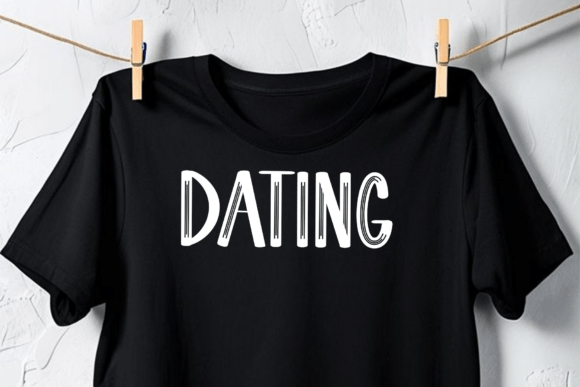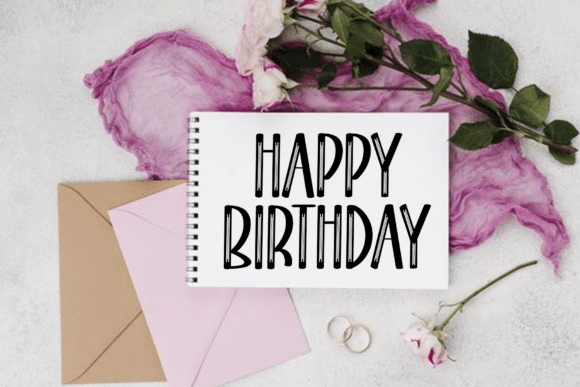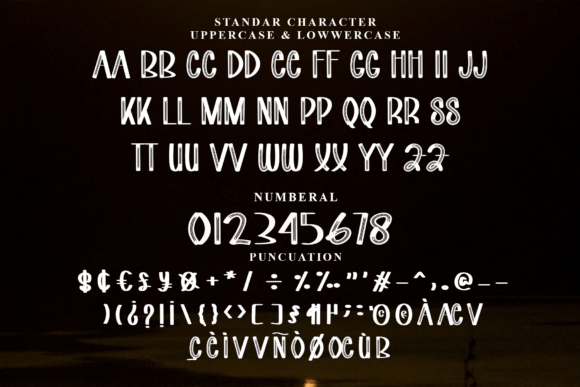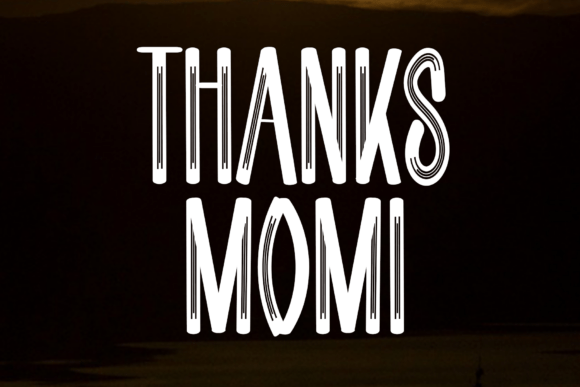
Embracing the Clarity of Handwritten Perfection
There’s a moment when you stumble upon a font that feels like a breath of fresh air. It’s the moment when your design takes a leap forward, and you know you’ve found something special. For me, that moment came when I discovered the Bright Digital Font – a modern handwritten masterpiece that exudes clarity and crisp elegance.
Bright Digital Font is a carefully crafted entry into the world of handwritten fonts, designed to evoke a sense of sophistication and refinement. Its tall, thin strokes and subtle, airy slant make it the perfect choice for designers looking to add a touch of elegance to their projects. Whether you’re working on a travel photography website or branding a new outdoor gear company, Bright Digital Font is sure to impress.
As a designer, you’re always on the lookout for fonts that can elevate your work and make it stand out. Bright Digital Font is a valuable addition to any design arsenal, offering a clean and approachable style that’s perfect for a wide range of projects.
Bright Digital Font Key Features
- Unique Character Set: Bright Digital Font includes a comprehensive set of characters, including Latin, Cyrillic, and Greek alphabets, as well as a range of punctuation marks and symbols.
- Highly Legible: The font’s carefully crafted design ensures high legibility, making it perfect for use in digital displays, such as websites, mobile apps, and e-readers.
- Professional and Modern Look: Bright Digital Font features a clean, modern aesthetic that is ideal for use in corporate, editorial, and creative applications.
Bright Digital Font Review
Overall, I’m impressed with the Bright Digital Font. ✨ It has a unique and modern aesthetic that’s perfect for digital projects. The font’s clean lines and minimalistic design make it easy to read, even on smaller screens. ✨
- The font’s versatility is one of its strongest features. It’s suitable for a wide range of applications, from logos and branding to web and mobile interfaces.
- The font’s OpenType features, such as ligatures and swashes, add an extra layer of sophistication and elegance.
- The font’s extensive language support makes it a great choice for global projects.
However, there are a few limitations to consider: ⚠️ The font’s sans-serif design may not be suitable for all projects, particularly those that require a more traditional or serif look.
- The font’s weight range is somewhat limited, with only four weights available (light, regular, medium, and bold).
- The font’s italics may not be as refined as some users would like.
Overall, I think the Bright Digital Font is a solid choice for digital designers. While it may not be perfect, its unique design and versatility make it a great addition to any font collection.
Getting the Most Out of Bright Digital Font
Here are some tips to help you get the most out of Bright Digital Font:
- Use it for titles and headings to add a touch of modernity to your design.
- Pair Bright Digital Font with other modern fonts to create a cohesive look.
Bright Digital Font is perfect for:
- Modern website designs
- Digital marketing materials
- Presentations and pitches
Alternatives to Bright Digital Font
Montserrat is a clean, sans-serif font ideal for digital design, particularly for titles and headings. It’s a popular choice among designers due to its modern and sleek appearance. When to use: Titles, headings, and body text for digital interfaces.
Comparison to Bright Digital Font: Montserrat is more versatile and widely used, making it a better choice for long-term projects. While Bright Digital Font has a unique digital feel, Montserrat’s clean design makes it more adaptable to various design contexts.